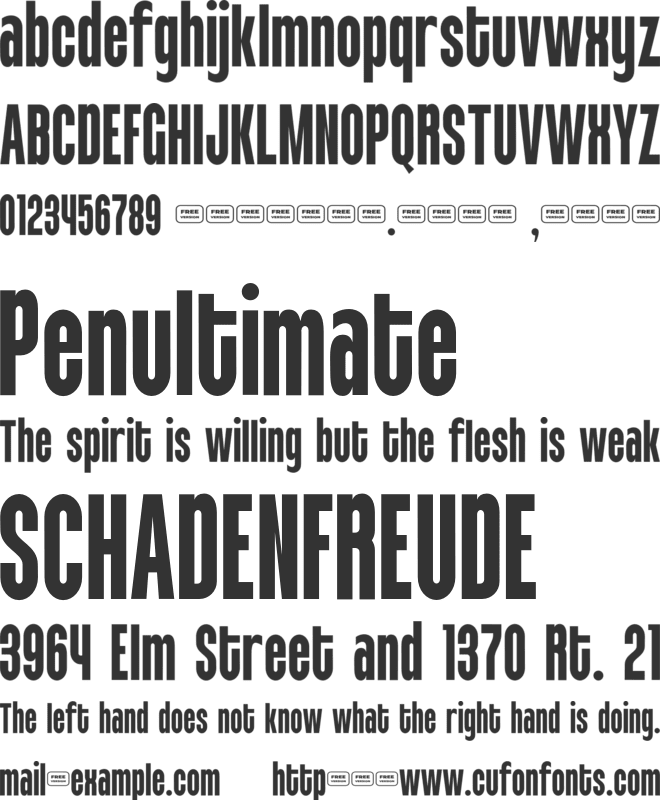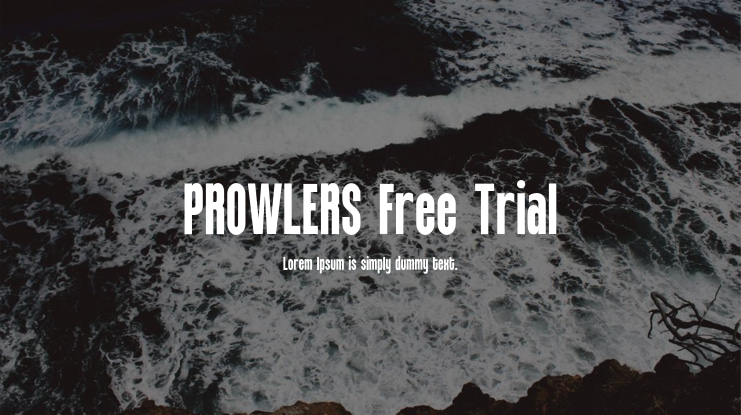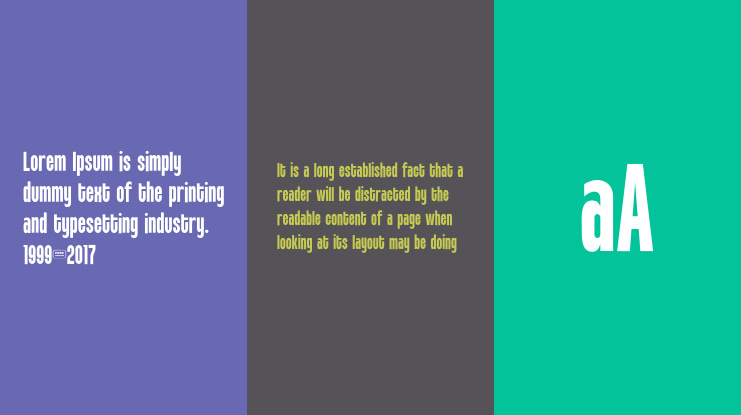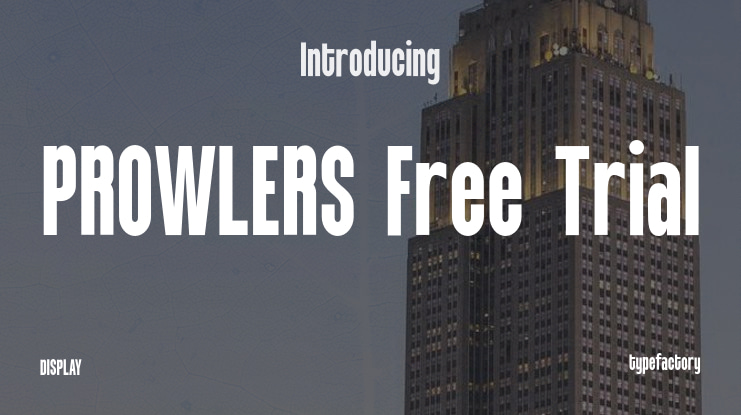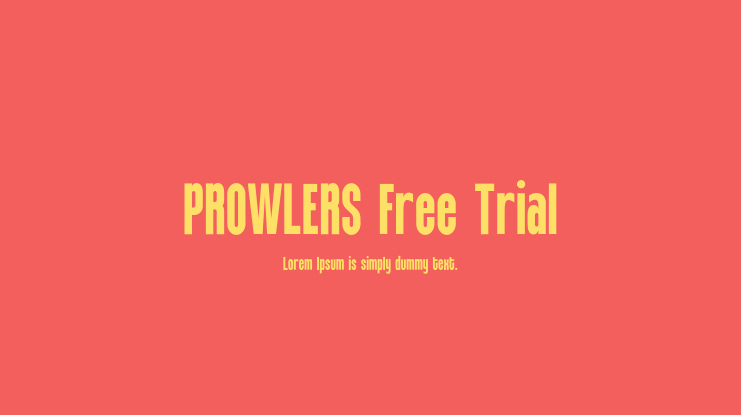
PROWLERS Free Trial Font
Introducing "Prowlers" - a bold condensed sans font that prowls through your designs with strength and impact!
With its commanding and compact letterforms, "Prowlers" leaves a lasting impression in any project. Each character is meticulously crafted to showcase boldness and versatility, making it perfect for attention-grabbing headlines, striking logos, modern posters, and more.
Embrace the power of "Prowlers" as it prowls through your designs, adding a touch of sophistication. Whether you're creating urban graphics, edgy branding, minimalist layouts, or impactful signage, this font will captivate your audience with its bold and condensed style.
Unleash the fierceness of "Prowlers" and let your designs roar!